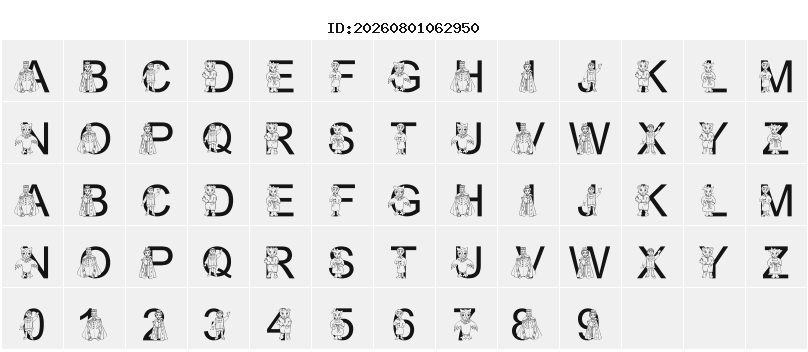
LMS Won't You Be My Neighbor Preview
• Font Name: LMS Won't You Be My Neighbor
• Font ID: Macromedia Fontographer 4.1 LMS Won't You Be My Neighbor
• Full Font Name: LMS Won't You Be My Neighbor
• Version: Macromedia Fontographer 4.1 3/1/2003
• PostScript Name: LMSWontYouBeMyNeighbor
• Character Count: 74
• Copyright: By London Stokes. In Memory of Mr. Fred Rogers and "Mr. Roger's Neighborhood".
About LMS Won't You Be My Neighbor.ttf
LMS Won't You Be My Neighbor.ttf is a modern, elegant sans-serif font designed for ultimate readability and visual harmony. Perfect for branding, headlines, web design, and print materials.